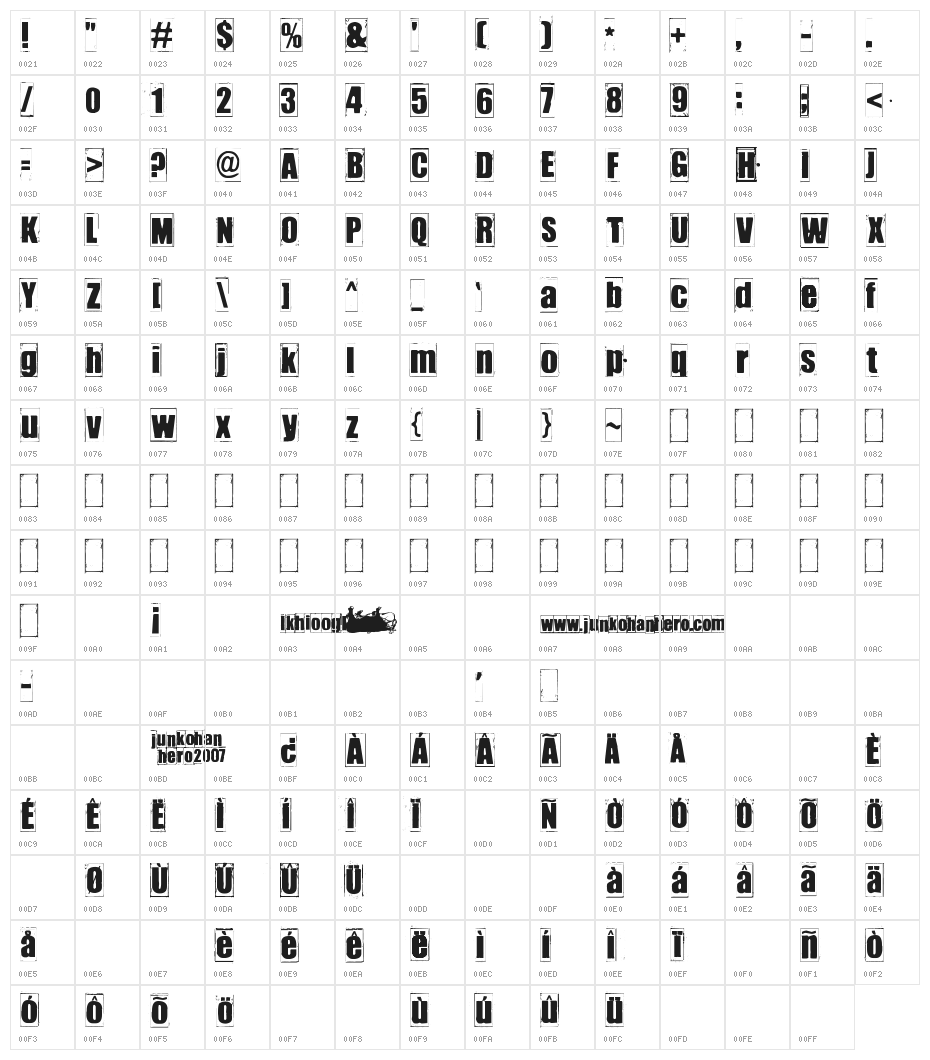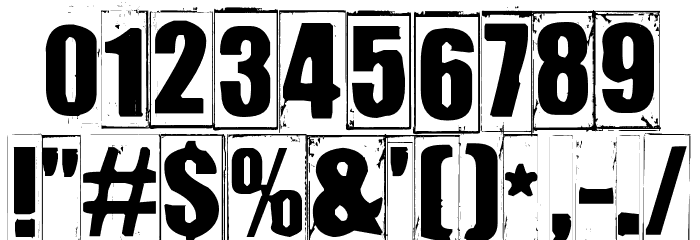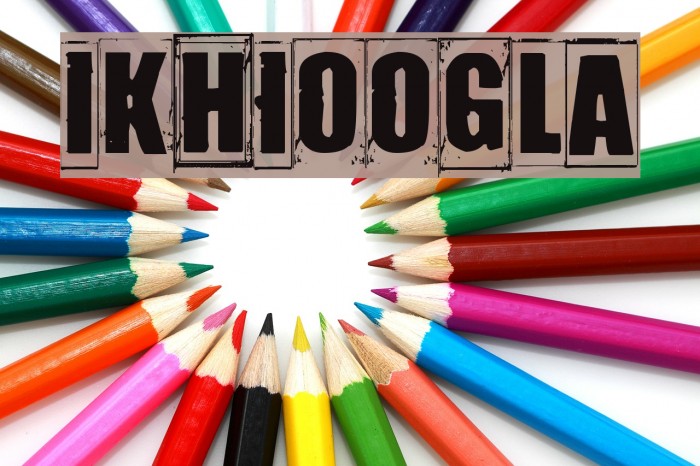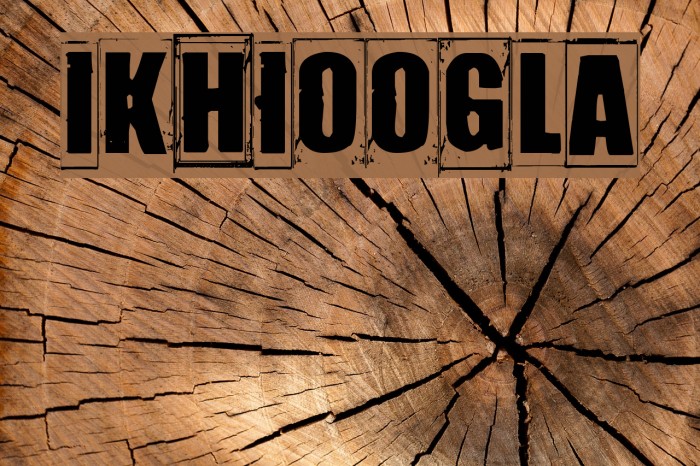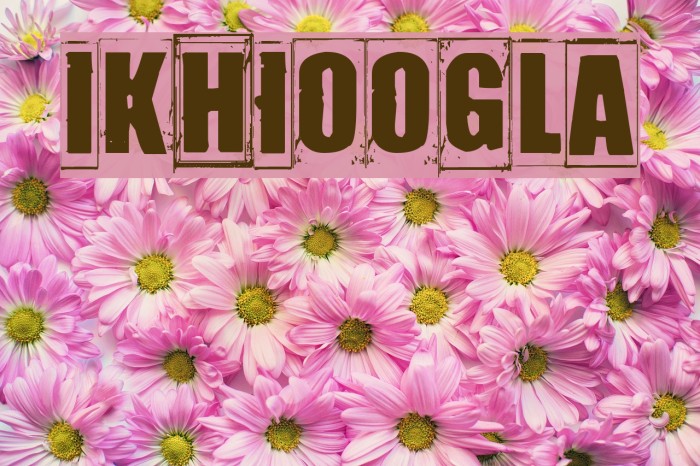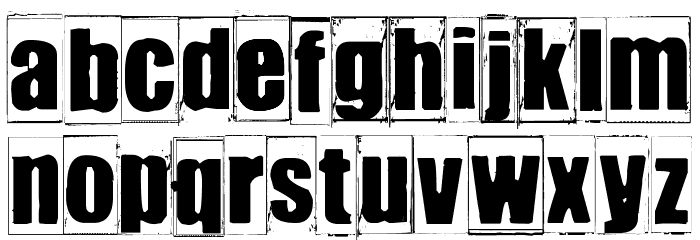
IKHIOOGLA Font
IKHIOOGLA Description
This font features a bold, distressed style with a vintage, grunge aesthetic. Each character is encased in a rough, textured box, giving the impression of being stamped or printed with an old typewriter. The uppercase and lowercase letters maintain a consistent boldness, while the numbers and special characters follow the same rugged theme. The font's design is reminiscent of industrial or retro signage, making it stand out with its unique, worn appearance.
| Overall Style | Vintage |
| Proposed Projects | Ideal for projects requiring a retro or industrial feel, such as posters, album covers, or branding for vintage-themed events. |